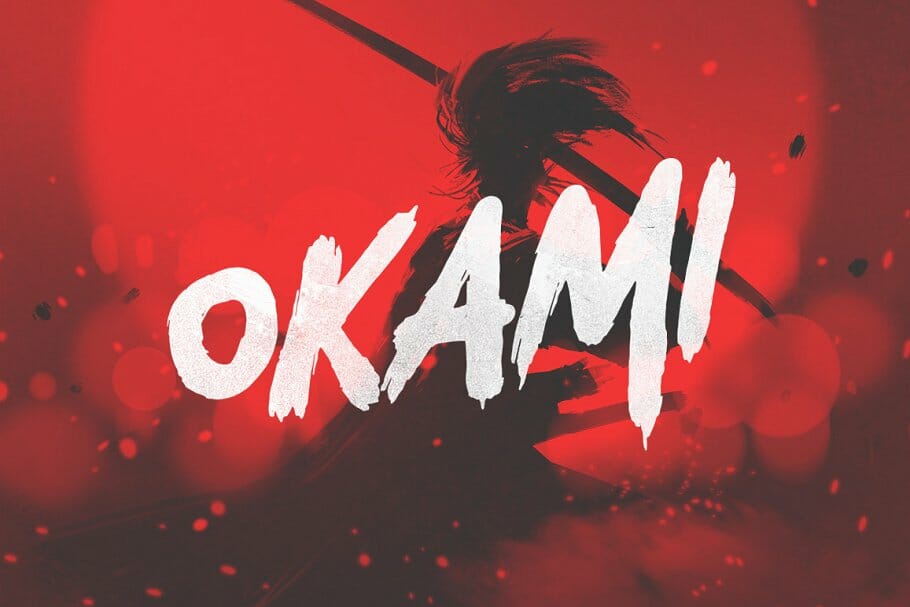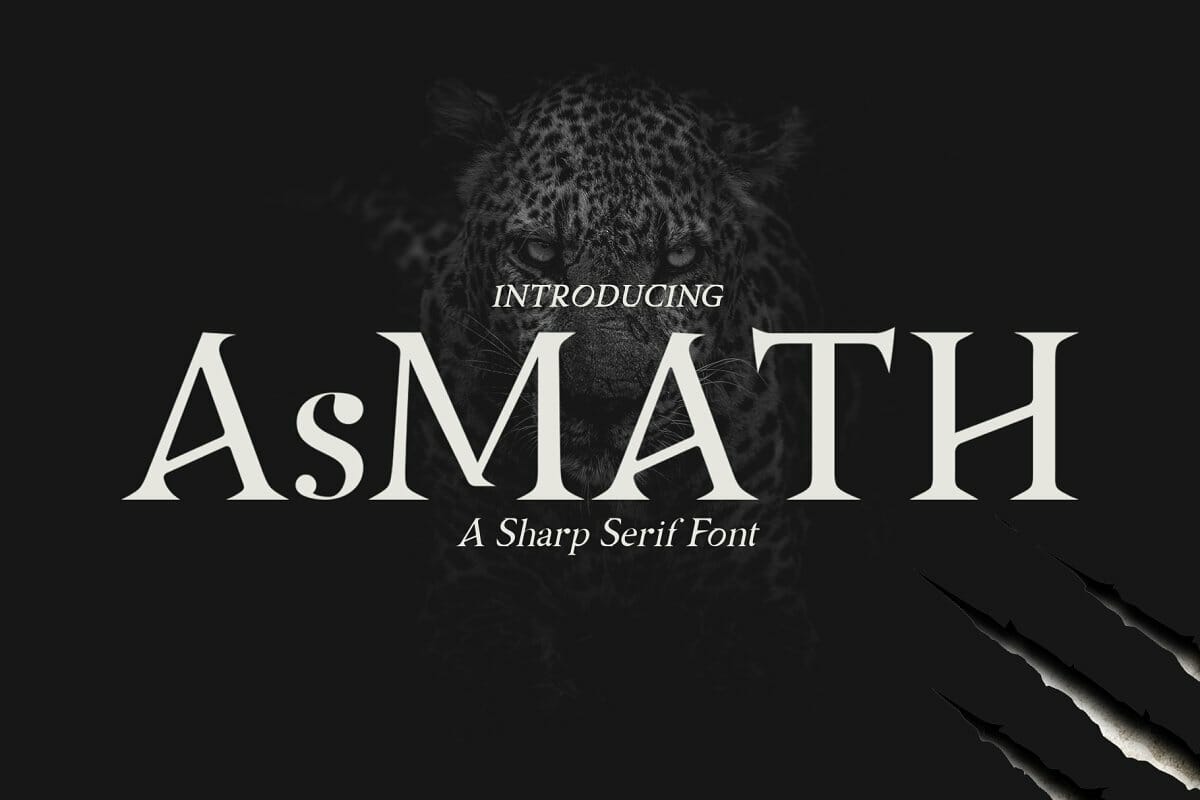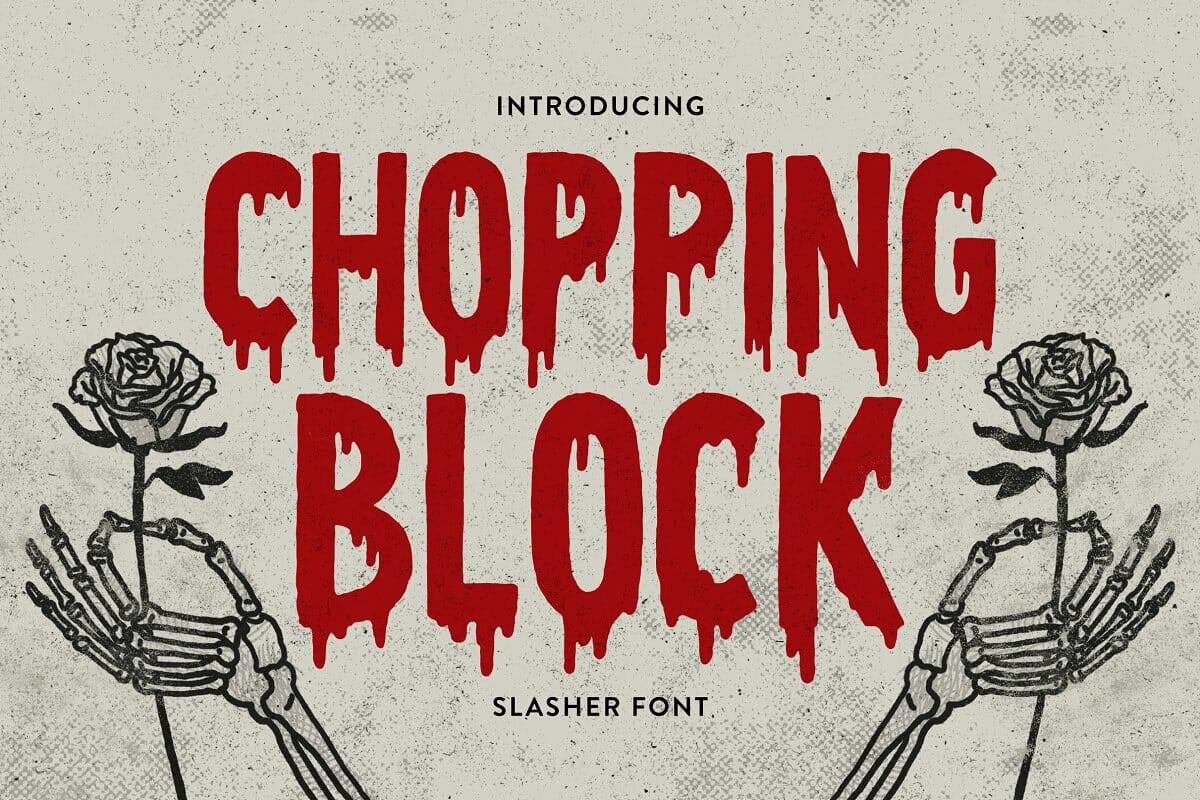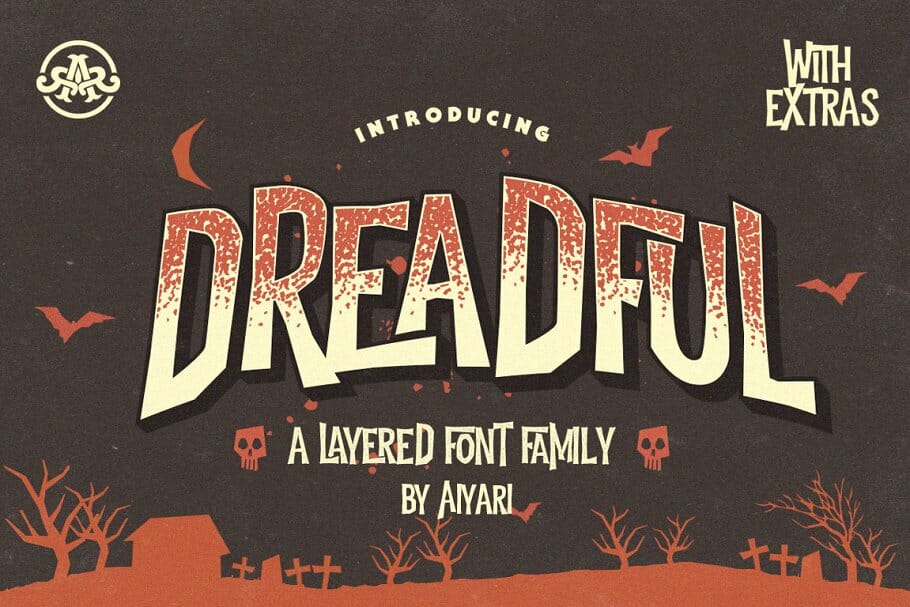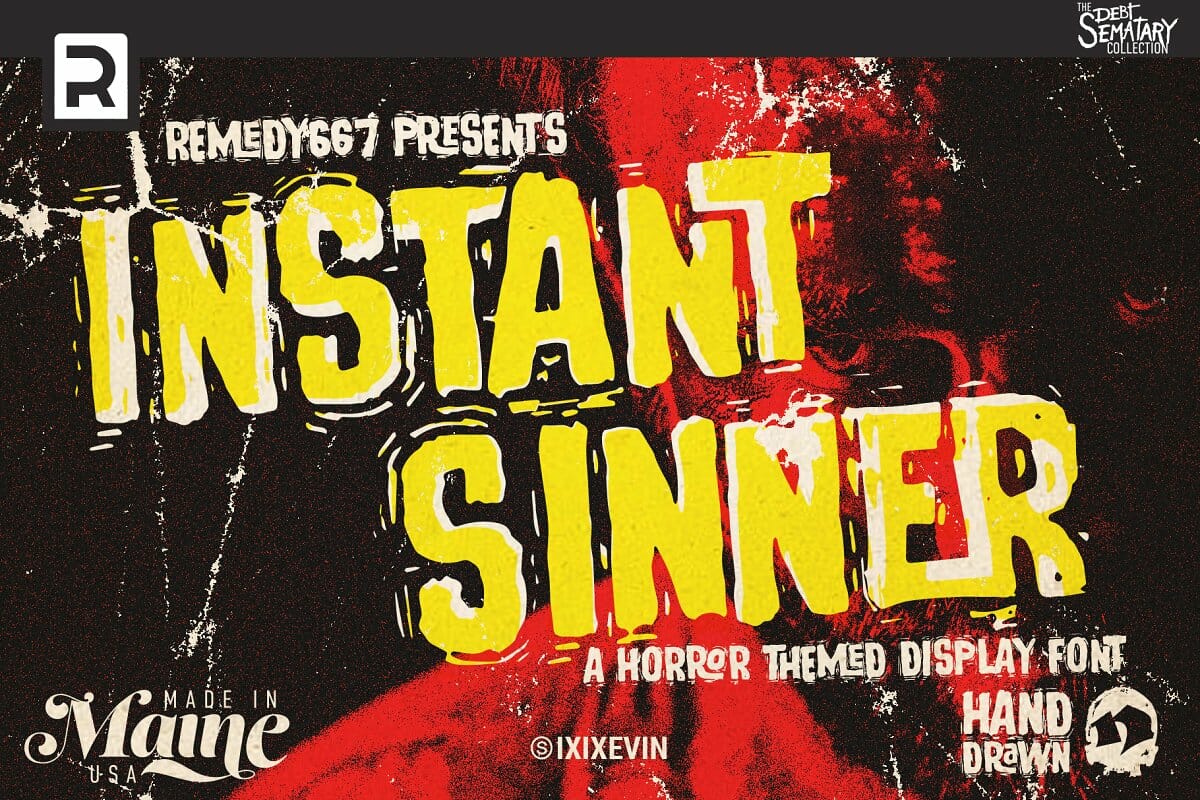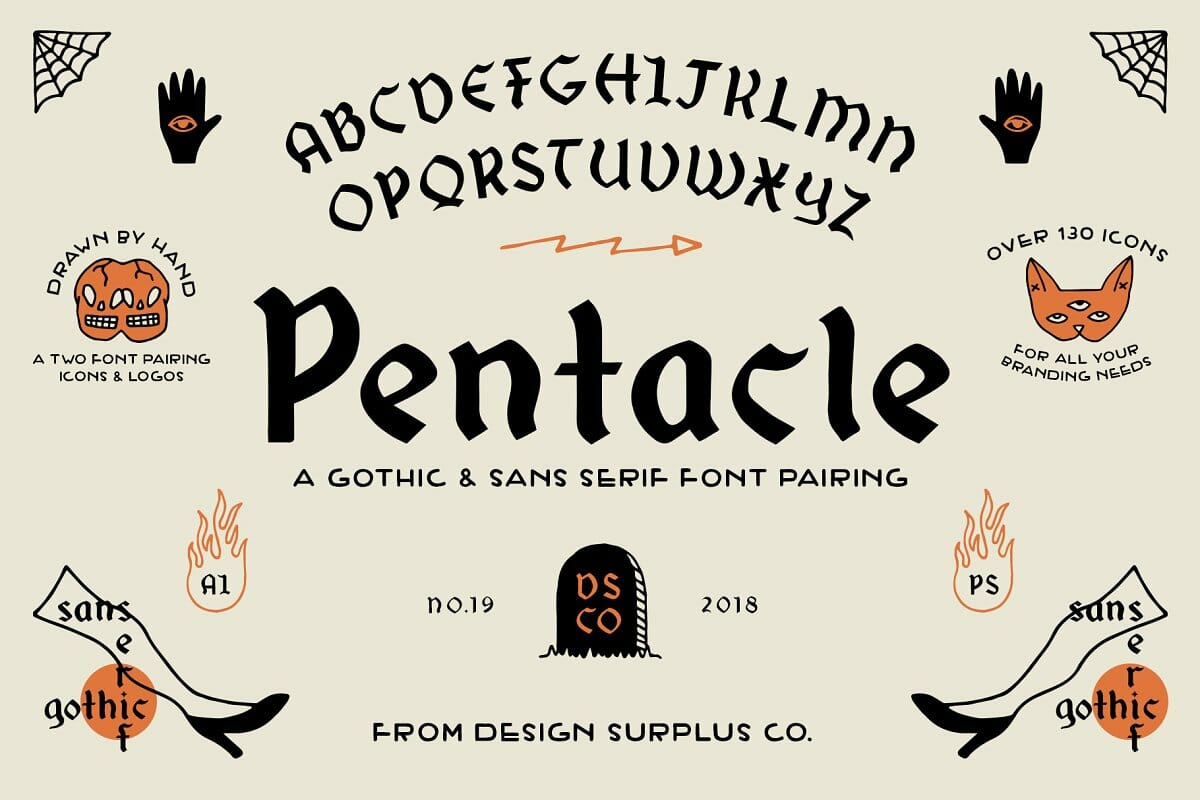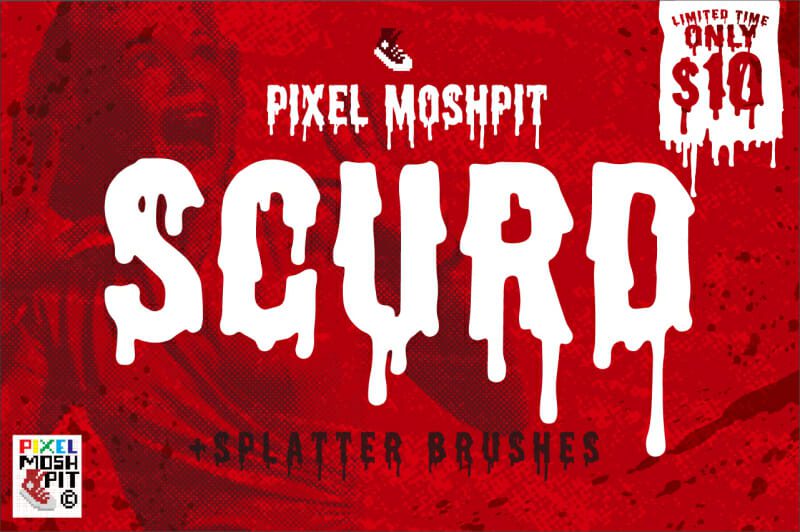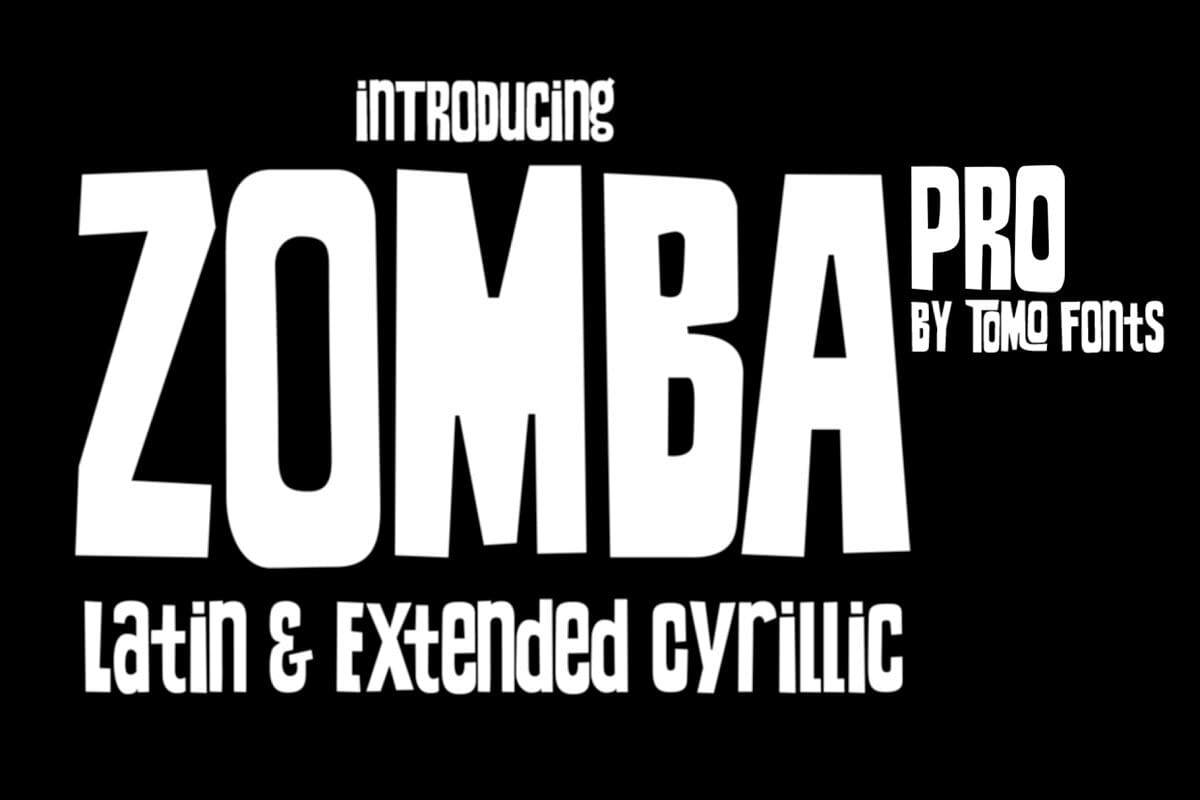
Spooky Fonts 2020
Dreadful
Introducing Dreadful A Layer Font Family by Aiyari with Extras
Chopping Block
Introducing Chopping Block Slasher Font
Zomba
Introducing Zomba Pro Latin & Extended Cyrillic by Tomo Fonts
Scurd
Instant Sinner
Remedy667 Presents Instant Sinner A Horror Themed Display Font Made in Maine Hand Drawn
AsMath
Introducing AsMath A Sharp Serif Font
Okami
Pentacle
Pentacle A Gothic & Sans Serif Font Pairing from Design Surplus Co. Over 130 Icons For All Your Branding Needs
Hellowin
Reckfield